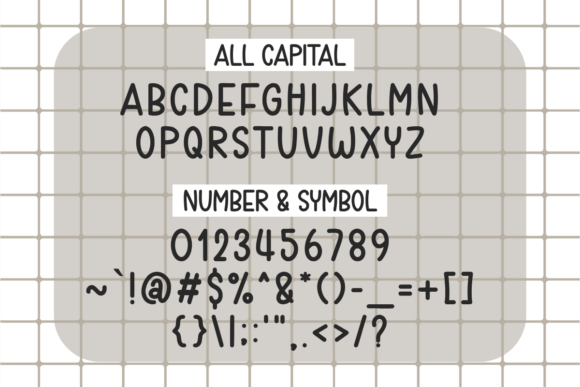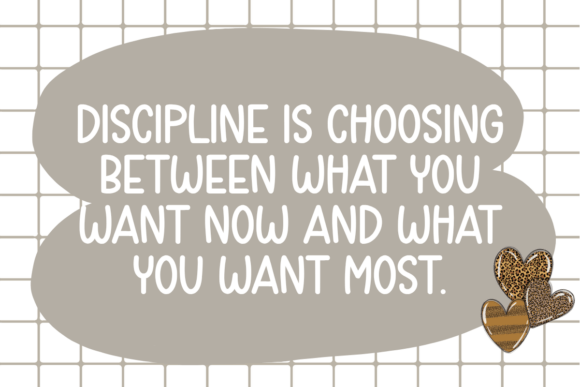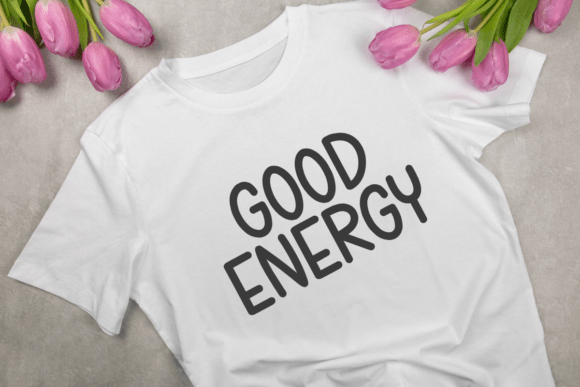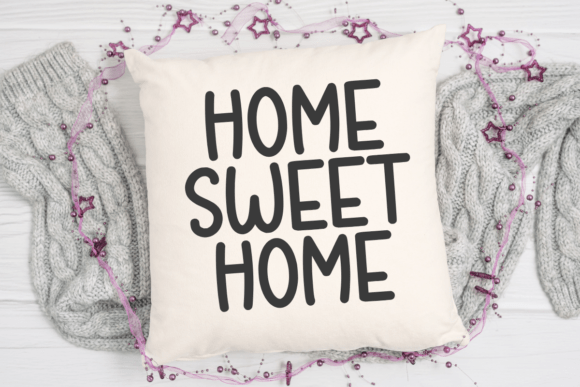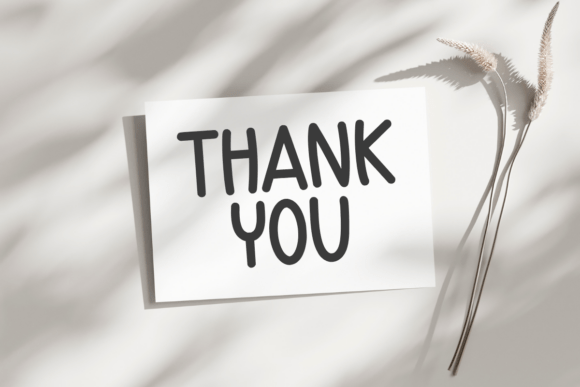
Introducing Funny Leopard: The Ultimate Cute Font for Crafty Projects
Are you a crafting mom, a DIY enthusiast, or a designer looking for a font that can add a touch of warmth and friendliness to your projects? Look no further than Funny Leopard, a delightful sans serif handwriting font that’s perfect for a wide range of creative endeavors. In this article, we’ll dive into the features and benefits of Funny Leopard, and explore how you can use it to take your crafting and design projects to the next level.
What is Funny Leopard?
Funny Leopard is a carefully crafted font that’s designed to evoke a sense of softness, friendliness, and naturalness. Its smooth curves and simple strokes make it an ideal choice for crafty projects that require a personal touch. Whether you’re creating handmade cards, stickers, kids’ worksheets, or classroom printables, Funny Leopard is the perfect companion to help you add a dash of whimsy and charm.
Key Features of Funny Leopard
- Cute and playful design: Funny Leopard boasts a delightful sans serif handwriting style that’s sure to capture the hearts of crafting moms and designers alike.
- Soft and friendly look: The font’s gentle curves and smooth strokes create a warm and inviting aesthetic that’s perfect for a wide range of projects.
- Easy to cut with Cricut and Silhouette: Funny Leopard’s simple design makes it a breeze to cut out using popular cutting machines, allowing you to create intricate designs and custom shapes with ease.
- Handcrafted feel: This font brings a sense of handcrafted charm to your projects, making them feel more personal and unique.
Perfect for Crafting Moms and Designers
Funny Leopard is an excellent choice for crafting moms who love working with adorable handwritten styles. Its versatility makes it suitable for a wide range of projects, including:
- Quotes and greeting cards: Add a touch of warmth and personality to your inspirational quotes and greeting cards with Funny Leopard.
- Kids’ labels and worksheets: Create engaging and educational materials for kids, including labels, worksheets, and coloring pages.
- Bullet journals and scrapbooks: Use Funny Leopard to add a personal touch to your bullet journals and scrapbooks, making them truly one-of-a-kind.
- Playful graphic projects: Bring a dash of whimsy to your graphic projects, including stickers, classroom printables, and DIY designs.
Tips for Using Funny Leopard
To get the most out of Funny Leopard, here are a few tips to keep in mind:
- Experiment with colors and textures: Add depth and interest to your projects by experimenting with different colors and textures.
- Mix and match with other fonts: Combine Funny Leopard with other fonts to create unique and eye-catching designs.
- Use it for digital and print projects: Funny Leopard is versatile enough to be used for both digital and print projects, making it a great addition to your font library.